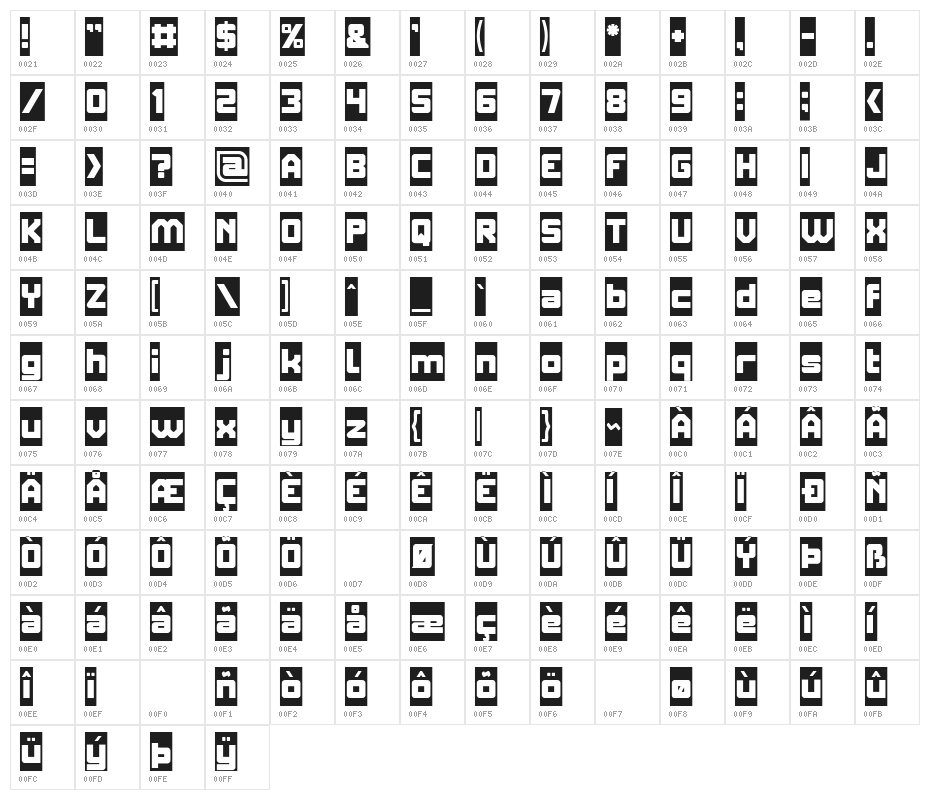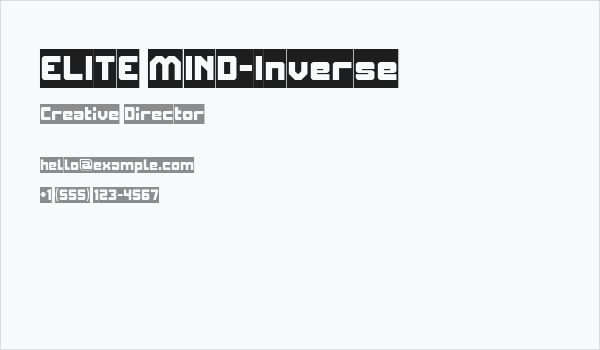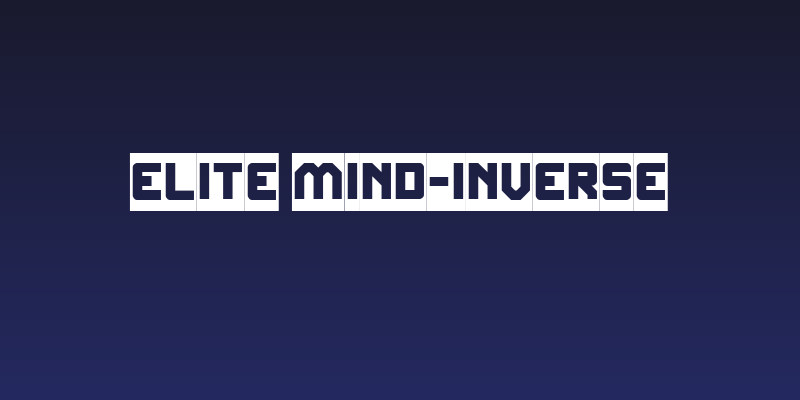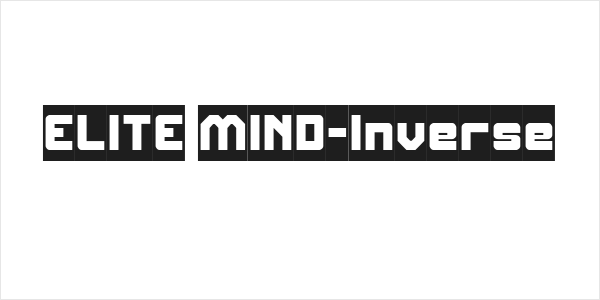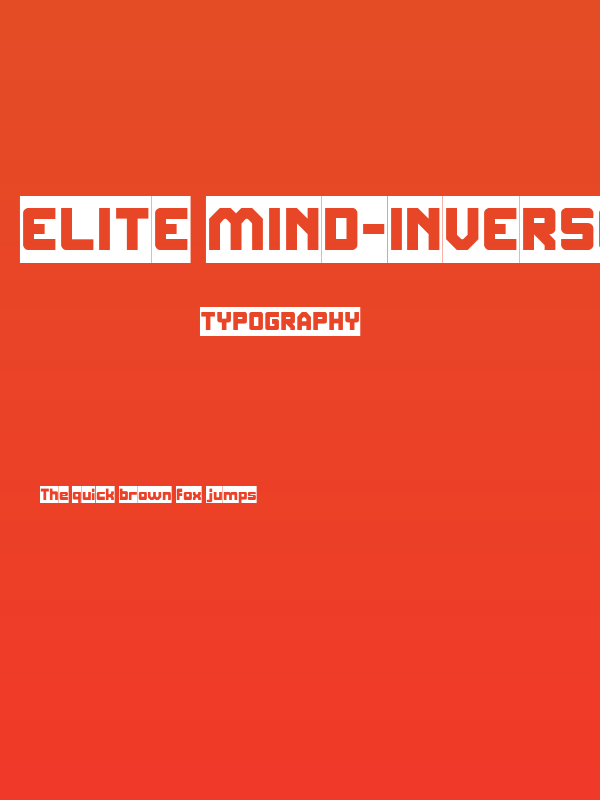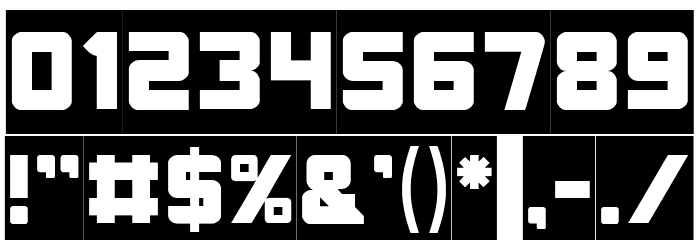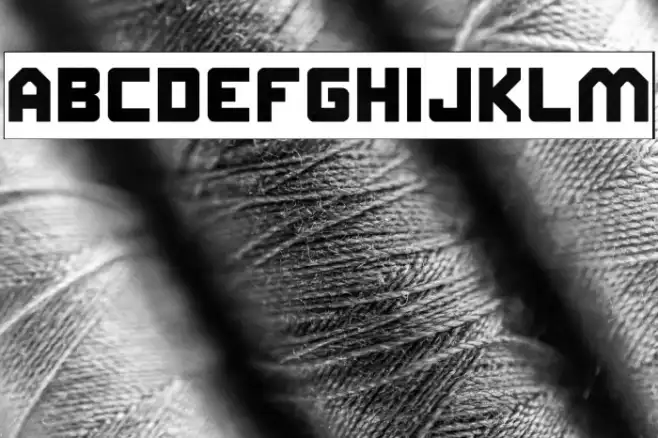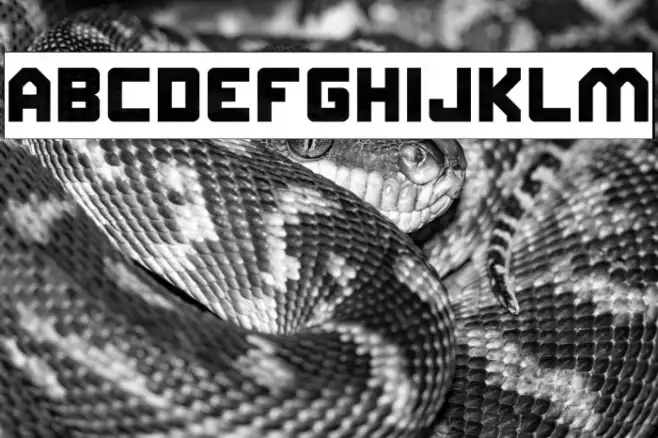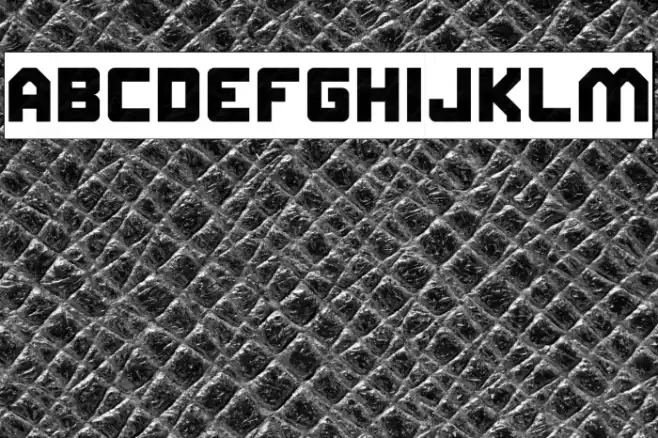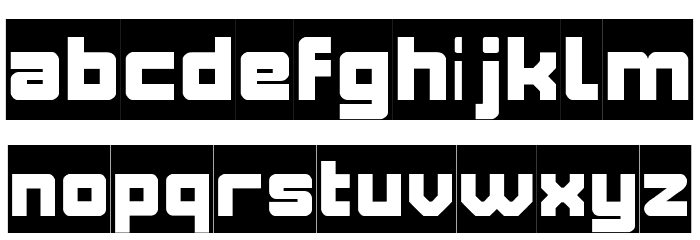
ELITE MIND-Inverse Font
ELITE MIND-Inverse Description
This font features a bold, geometric design with a strong presence. The characters are blocky and angular, giving it a futuristic and industrial feel. The uppercase and lowercase letters maintain a consistent style, with sharp edges and a uniform height. The numbers and special characters follow the same design principles, ensuring a cohesive look across all elements. The font's high contrast and solid structure make it highly legible, even at smaller sizes. Its unique style is ideal for projects that require a modern and impactful aesthetic.